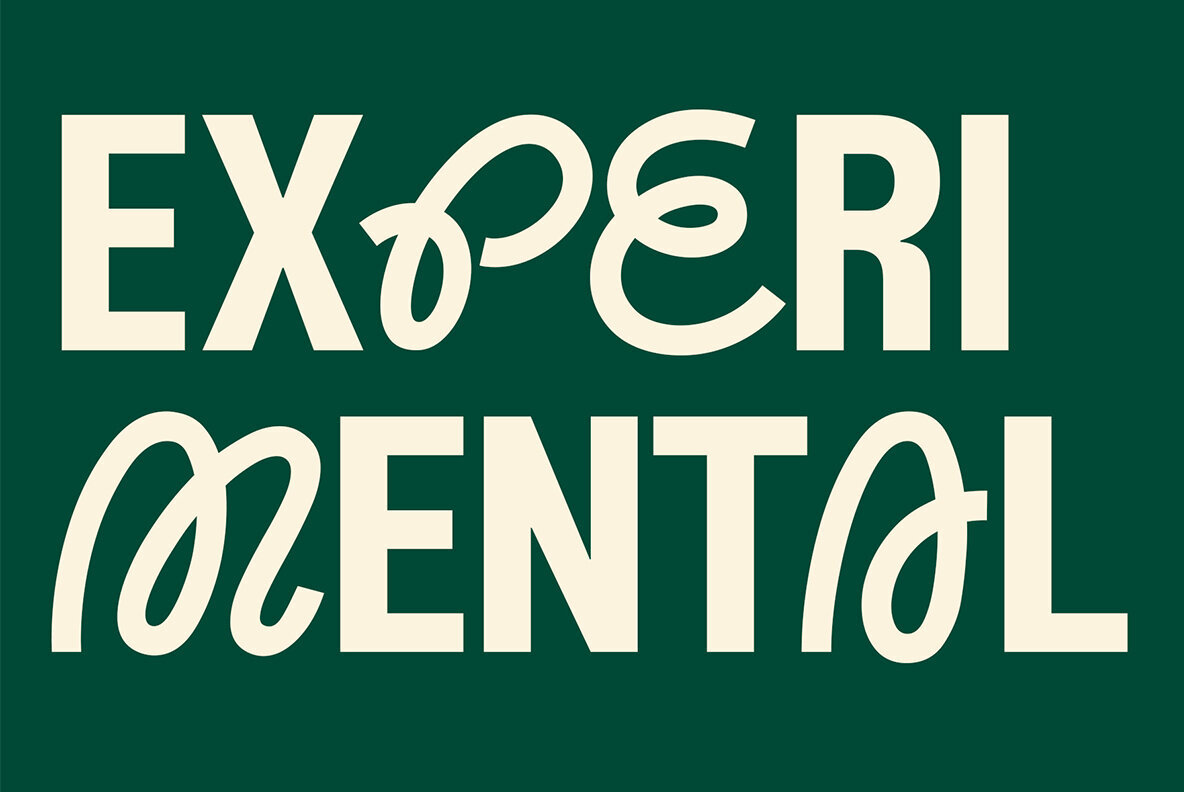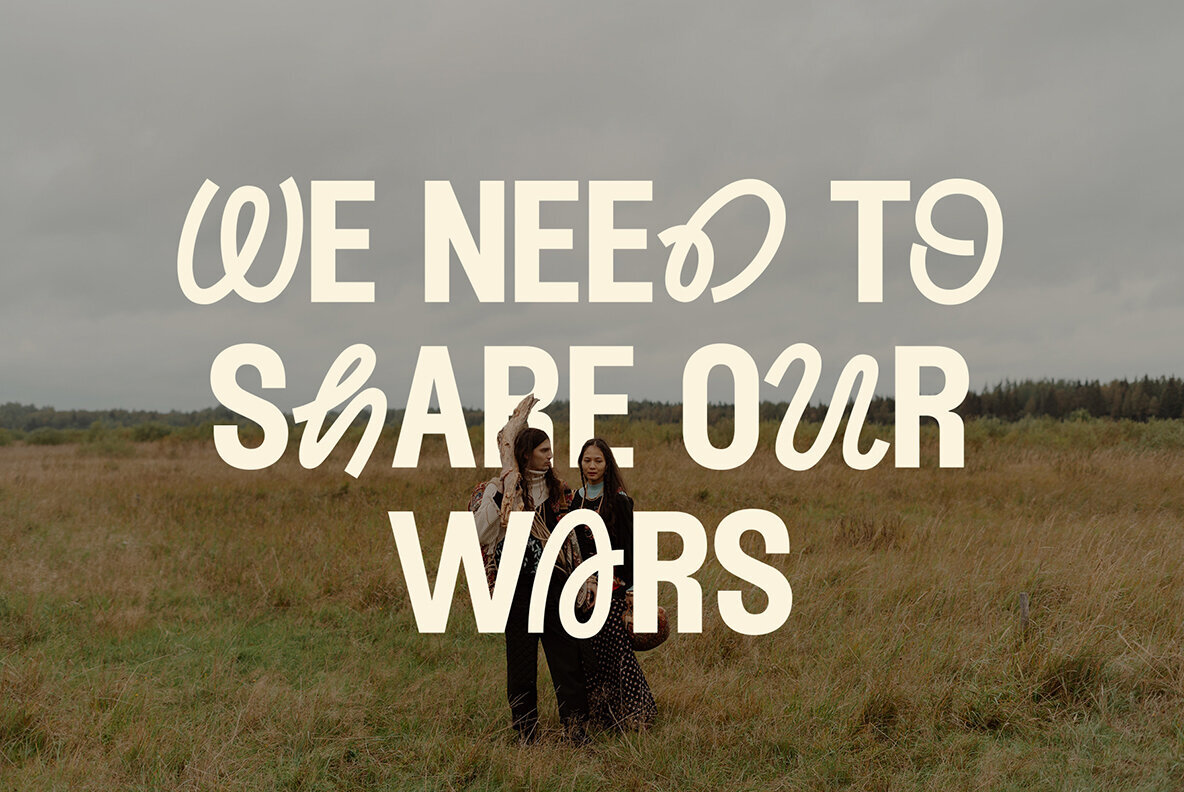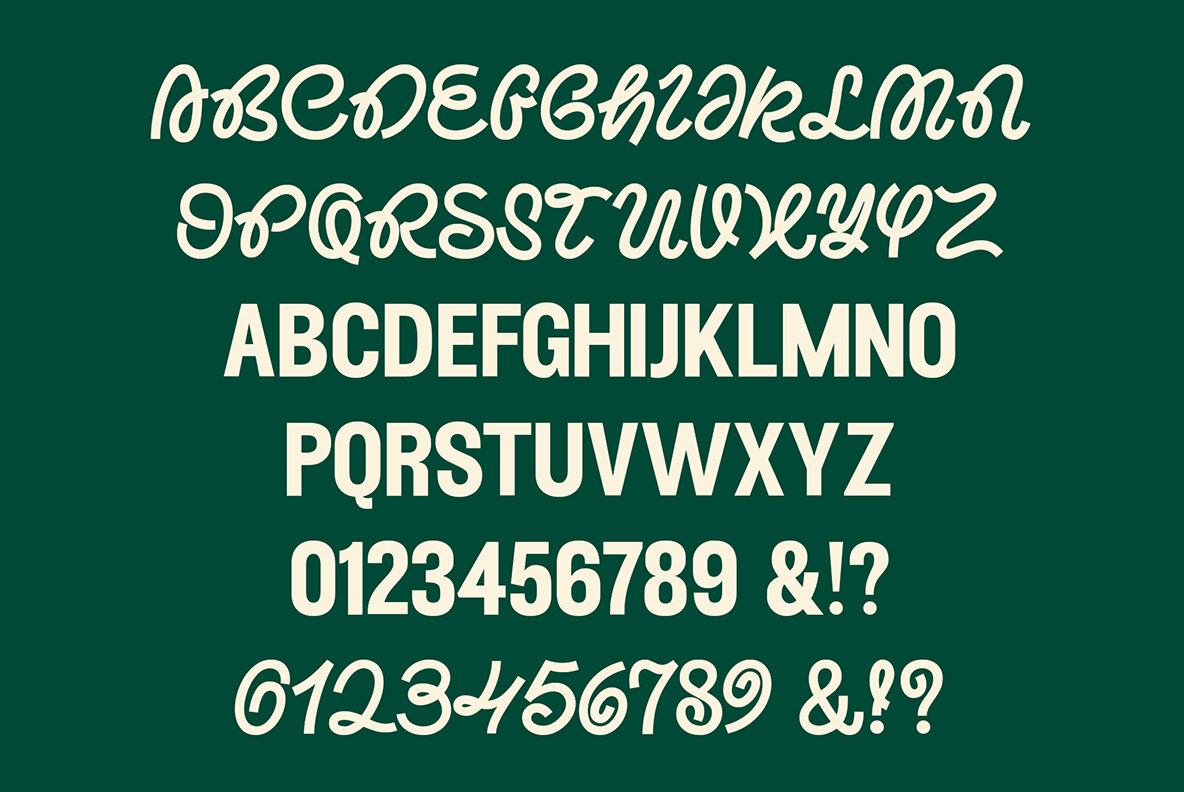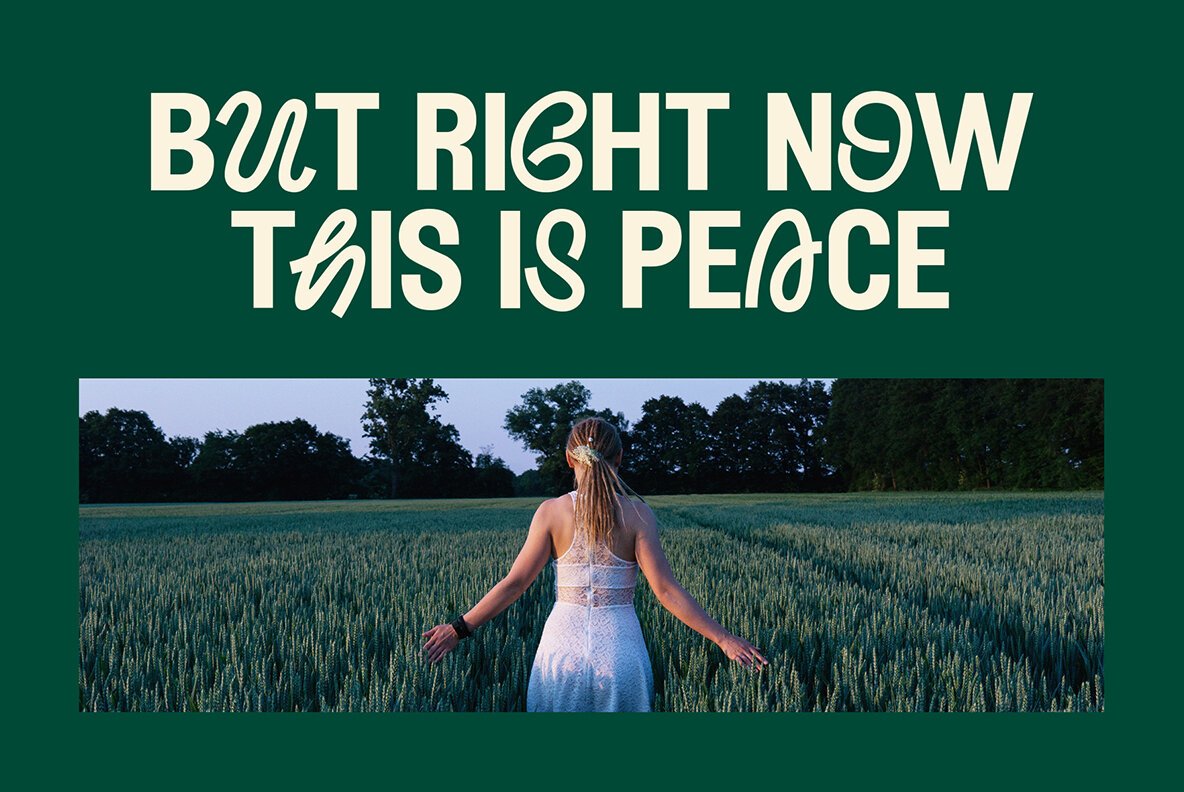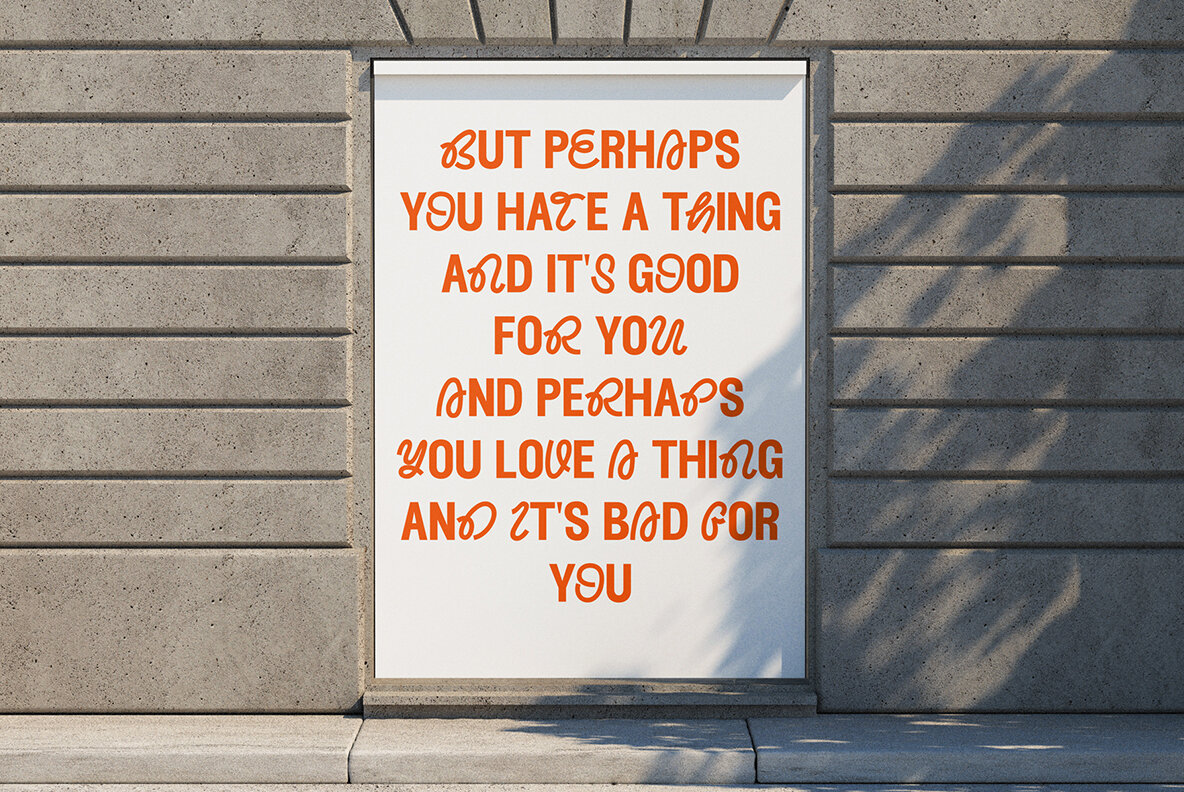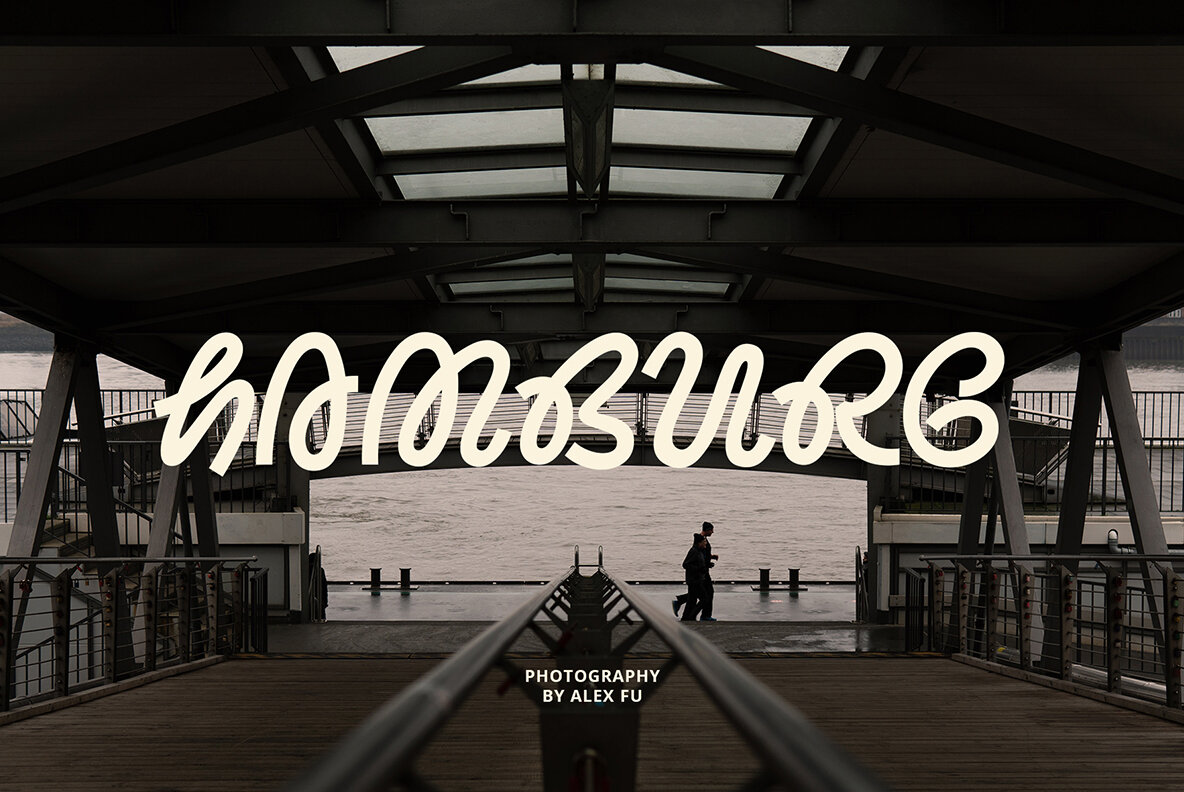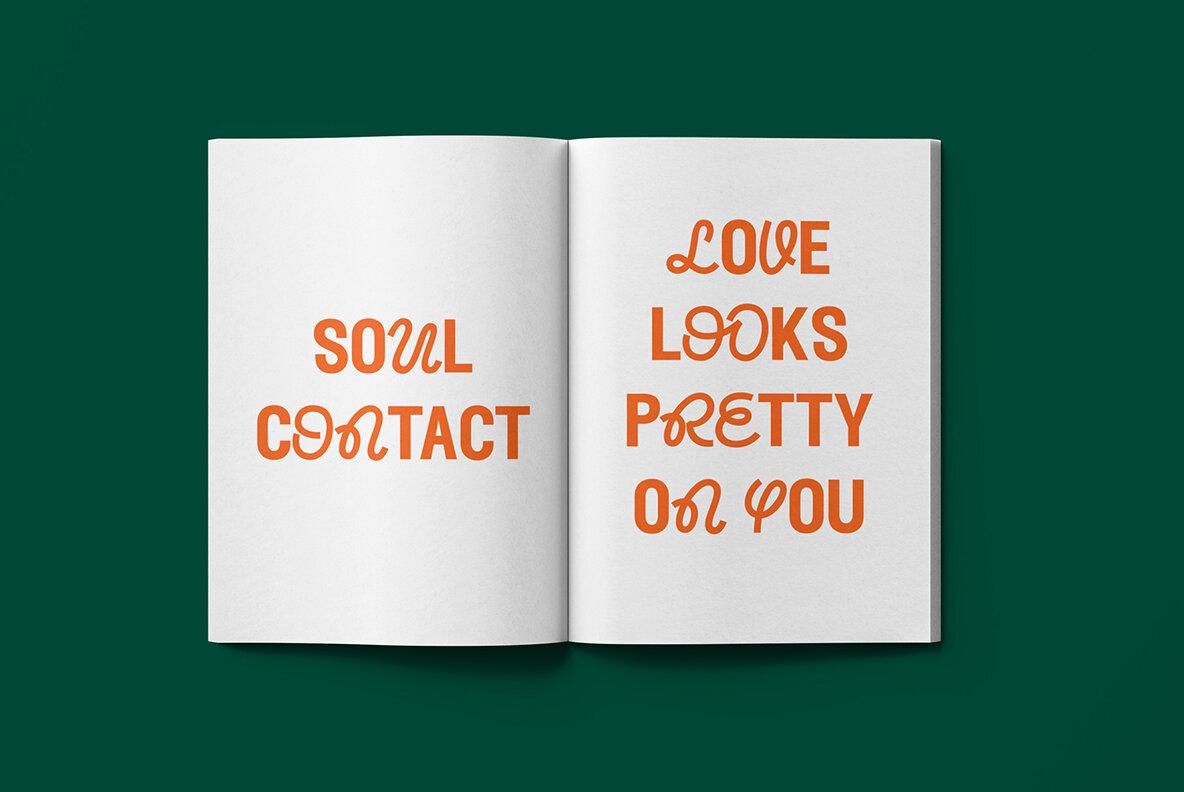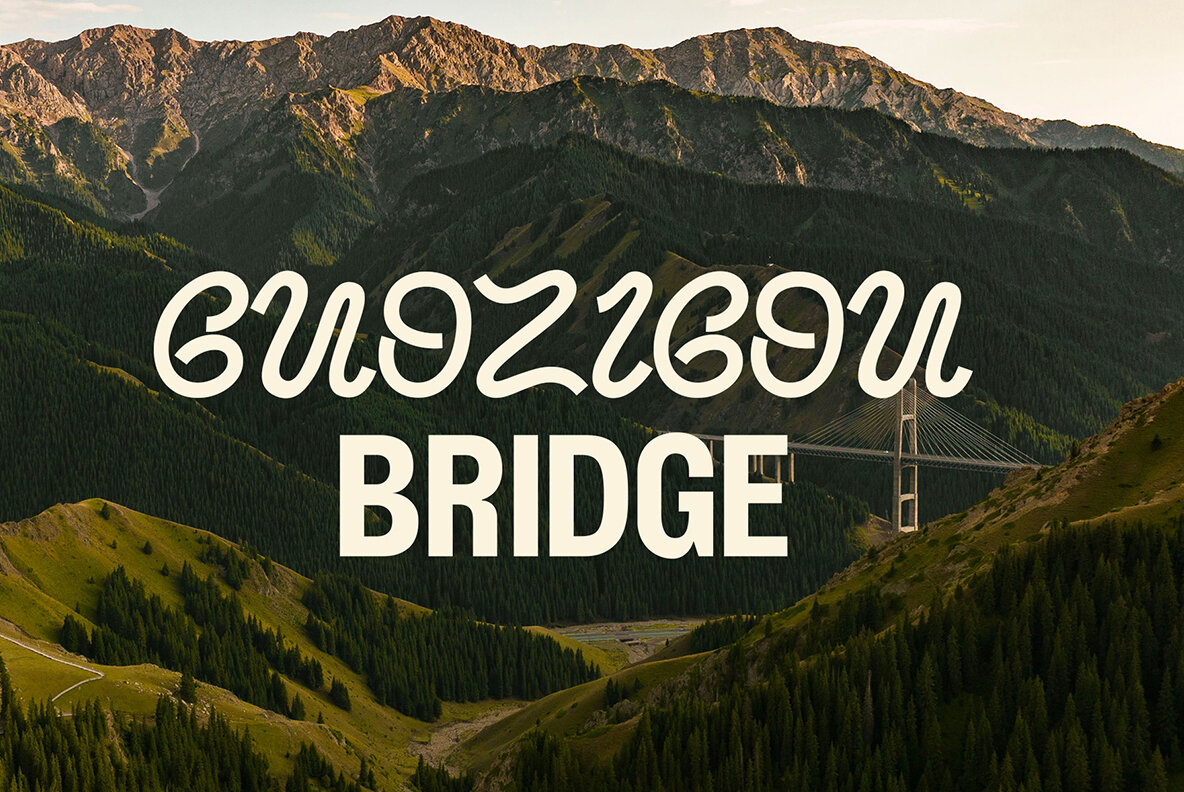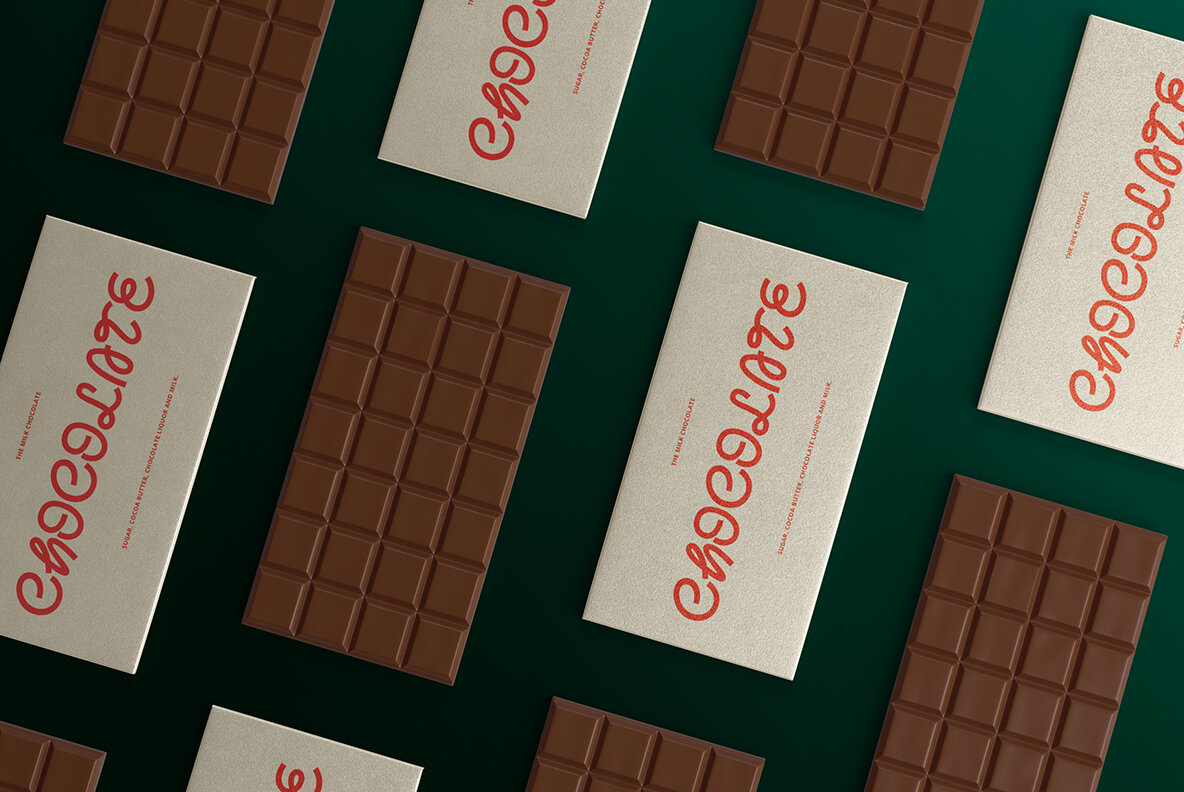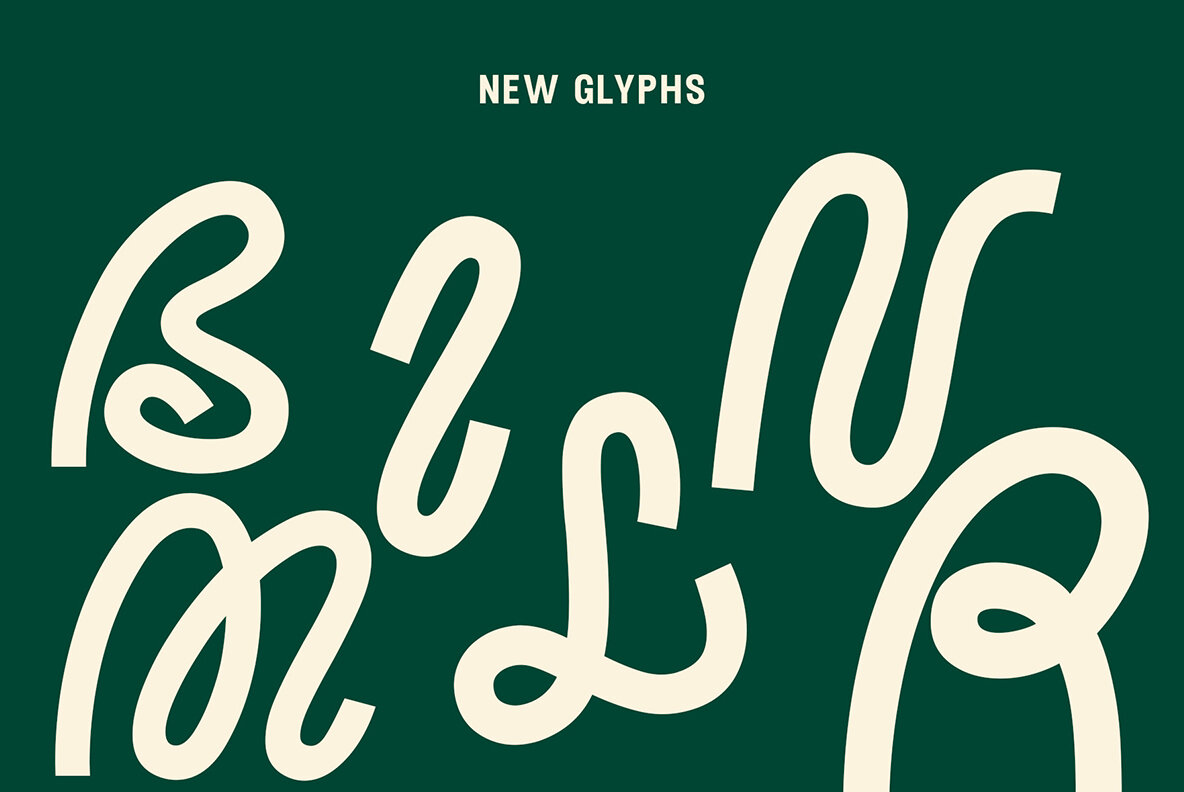
In the pursuit of exceptional design, the ED Nimpkish font emerges as a beacon of innovation. It stands at the crossroads of creativity, merging two distinct typographic styles into one cohesive narrative. This font is not just a tool; it is a gateway to a world where design speaks with an impactful voice. Crafted meticulously to break free from the monotonous, ED Nimpkish is your ally in the quest for distinction. Its characters are born from a marriage of the avant-garde and the timeless, ensuring that your message is not just seen, but felt. Whether it's the cornerstone of a logo or the statement piece in your poster design, ED Nimpkish delivers versatility and character. This typeface is designed for those who dare to make a statement, those who believe that design is not just observed but experienced. Every curve and line in the ED Nimpkish font is a testament to the power of great design. It's a typeface that commands attention and gives your work a voice that resonates with clarity and style. Embrace ED Nimpkish in your design toolkit and watch as it transforms the mundane into the extraordinary. This is a font for the bold, for the innovators, for the storytellers. It's not just about creating a visual—it's about creating an emotion, a connection, a reaction. With ED Nimpkish, your design is not just a piece of art; it's a piece of conversation. It's a font that speaks volumes in its silence, perfect for posters, book covers, and the ever-changing landscape of social media.Discover ED Nimpkish: A Hybrid Typographic Convergence
Design with Boldness and Precision
A Typeface for Every Canvas